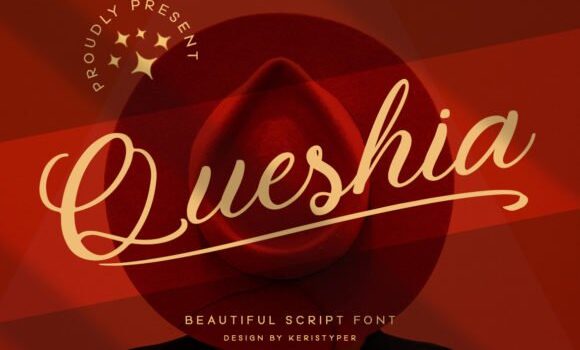
Queshia Font – Free Download Introduction to Queshia Font Queshia is a beautiful script designed to made your projects look gorgeous. 📸 Preview Gallery 6 images 📌 Product Name Queshia Font 👤 Author Keristyper 📂 Category Explore ⬇️ Download Queshia